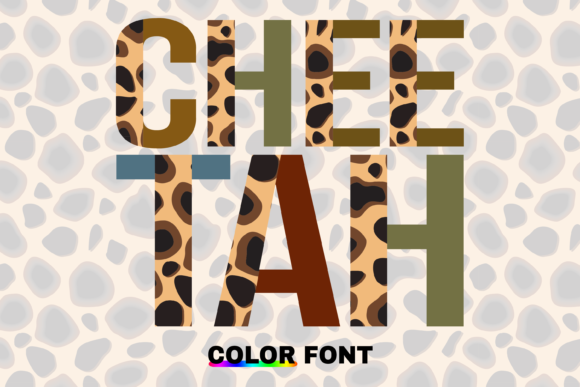
Looking for a font that will take your designs to the next level? Look no further than Cheetah Font! This colorful font, created by WADLEN, is the perfect way to add a touch of whimsy and fun to any project.
With its duo styles of black and color, Cheetah Font is designed to complement each other perfectly, making it an ideal choice for adding special decoration to your crafts. Whether you're creating custom designs, DIY crafts, or just need a lovely touch for any project, this font will do the trick!